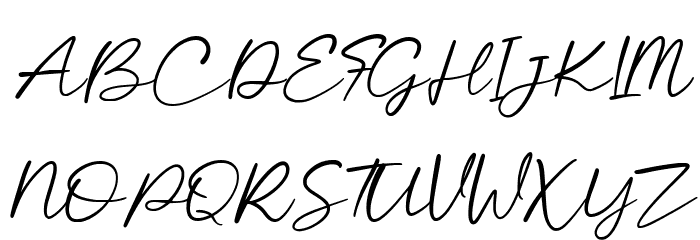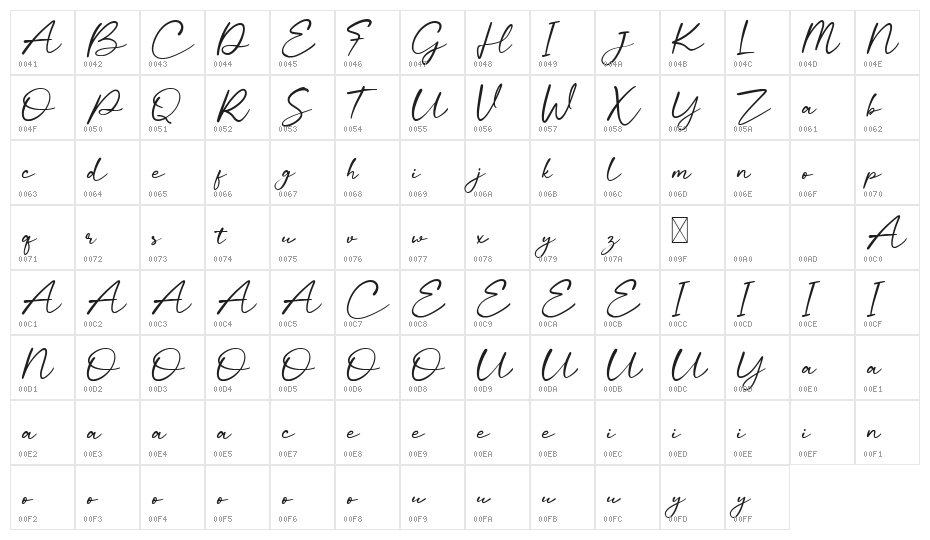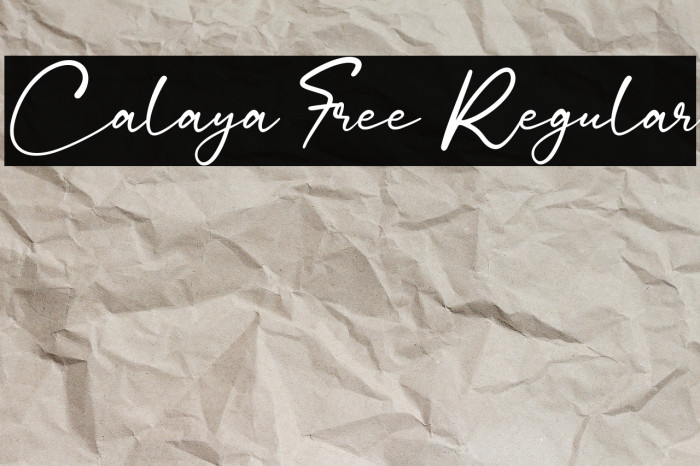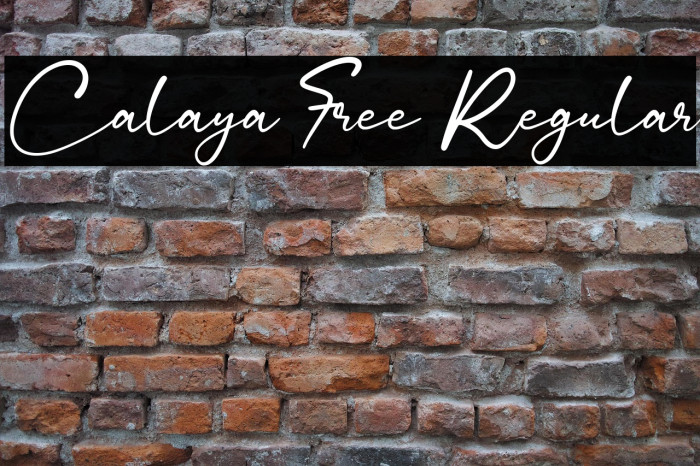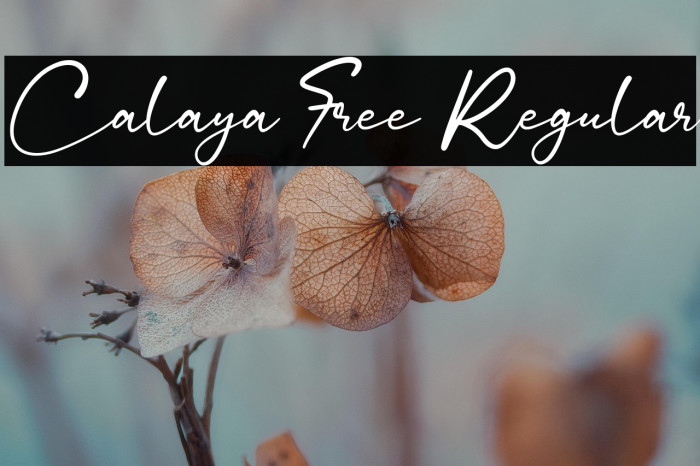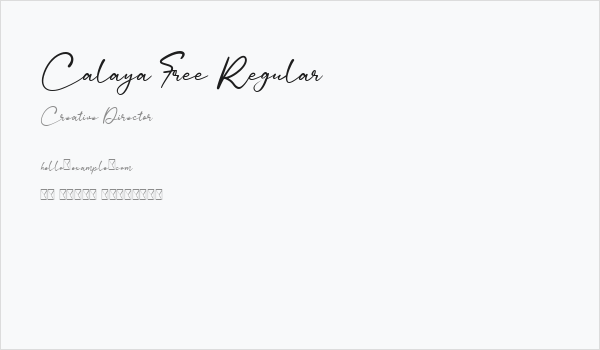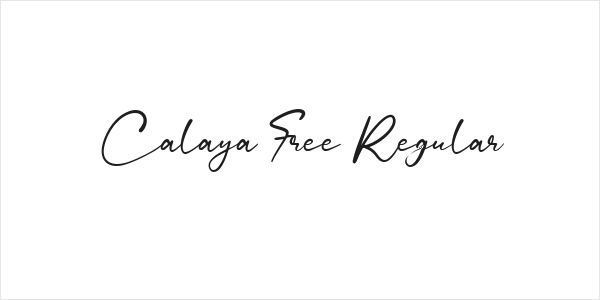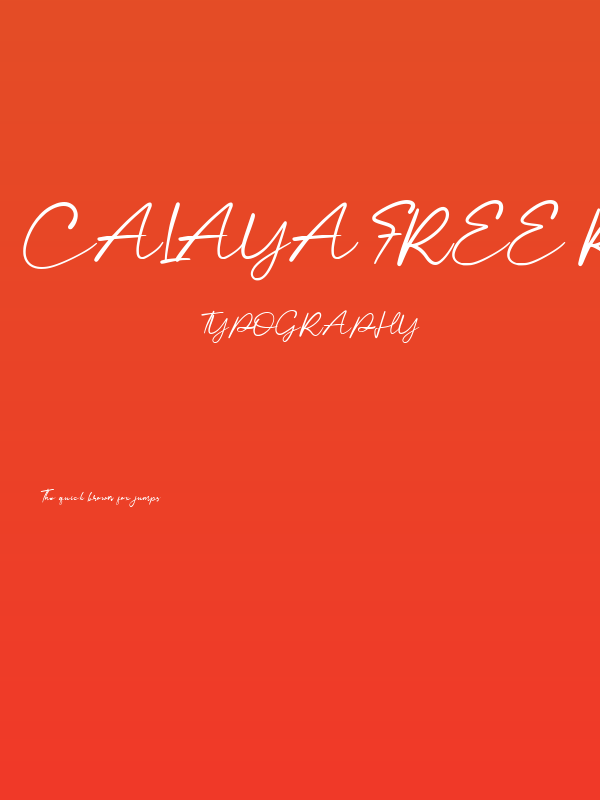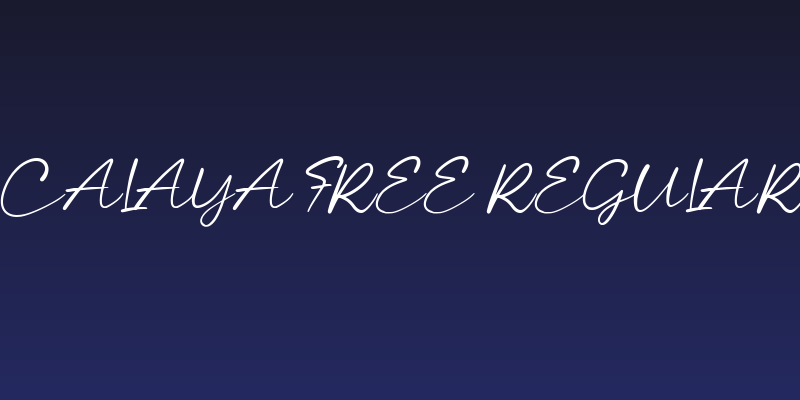
Calaya Free Regular Font
Calaya Free Regular Description
This font features a flowing, cursive style with elegant, sweeping strokes that give it a handwritten appearance. The characters are connected, creating a continuous and fluid look that is both sophisticated and approachable. The uppercase letters are slightly more structured, while the lowercase letters exhibit a more relaxed and freeform style. The overall design is balanced, with a slight slant that enhances its dynamic and lively character. This font is versatile, suitable for a variety of creative projects where a personal touch is desired.
| Proposed Projects | Ideal for wedding invitations, greeting cards, personal branding, and elegant logo designs. |